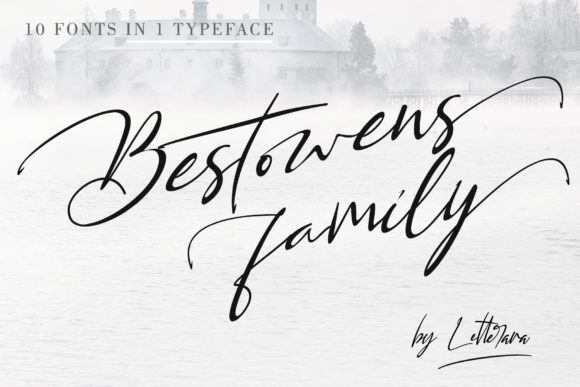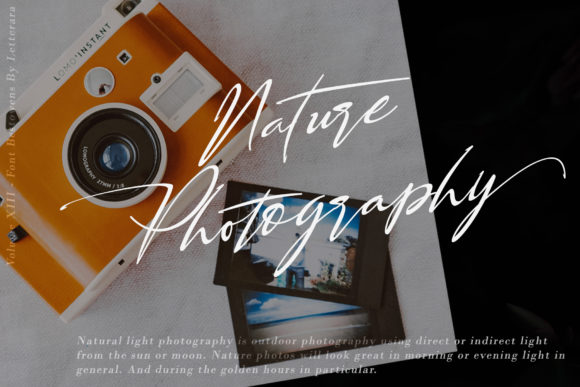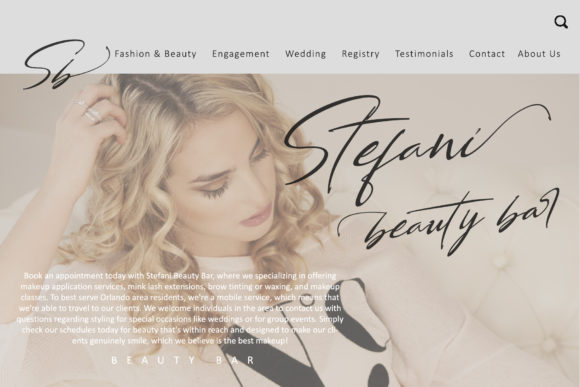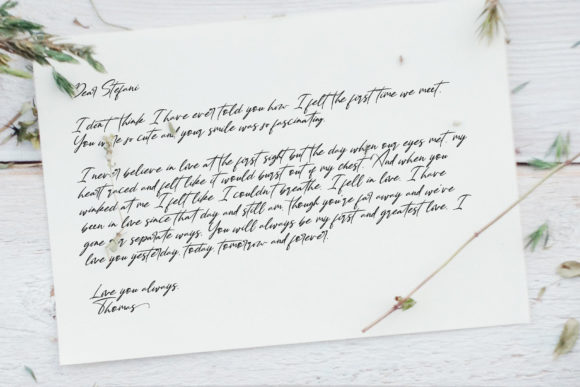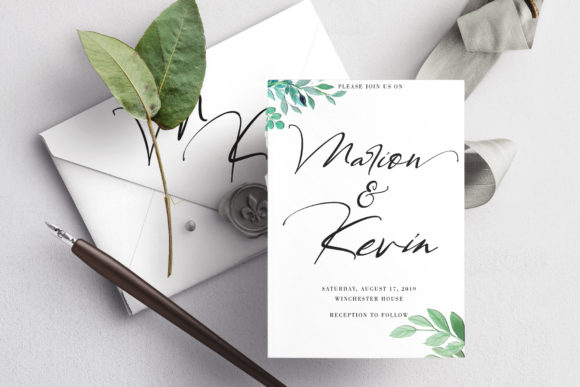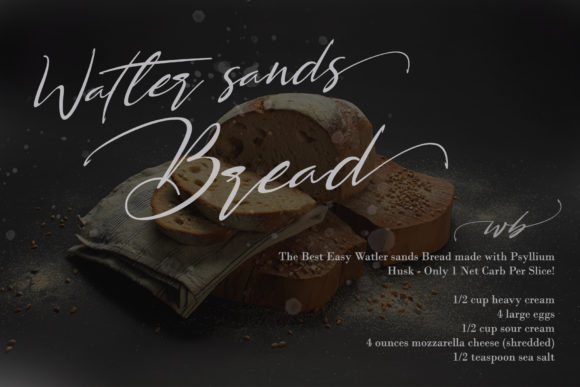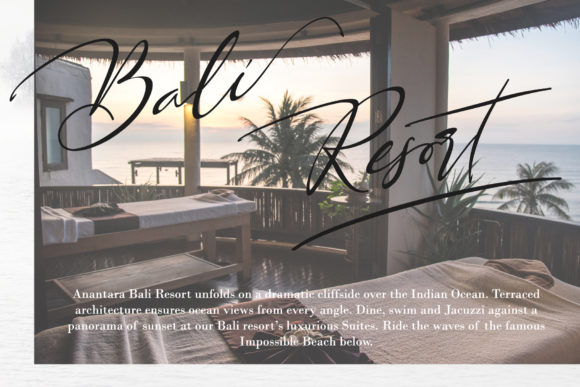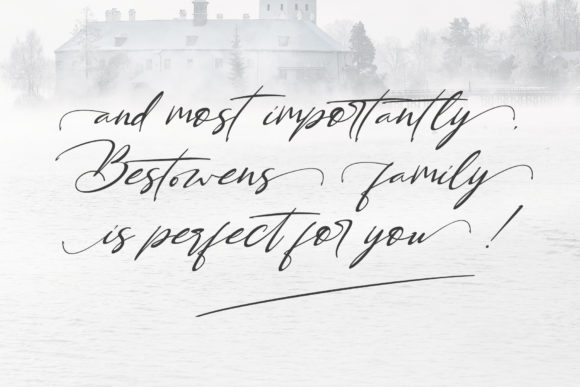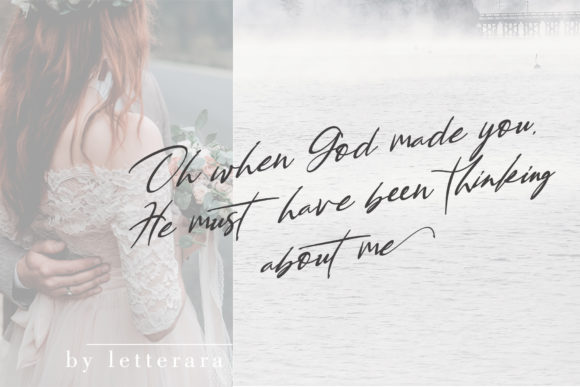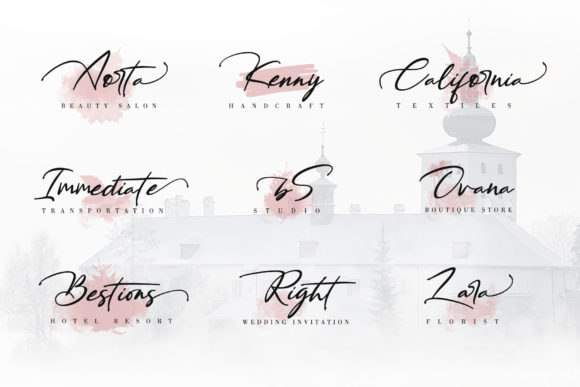
Bestowens Family Font
About Bestowens Family Font
Bestowens Family is the perfect handwritten font: Elegant, sweet, innocent, light and charming, this one-of-a-kind typeface will add a unique charm to any design project!